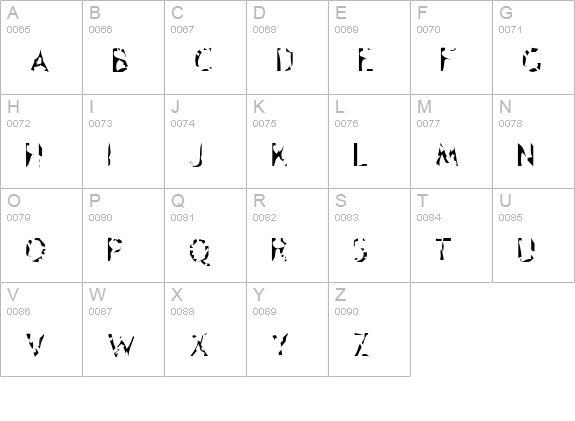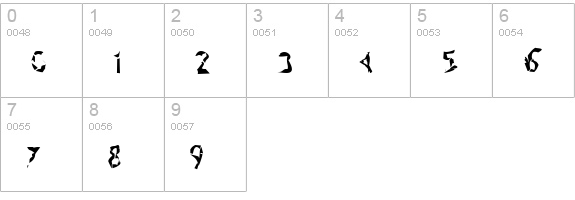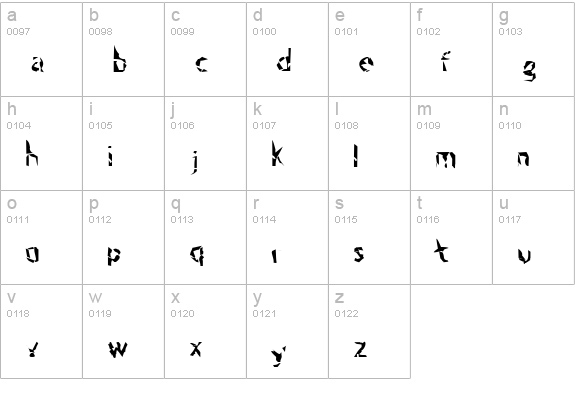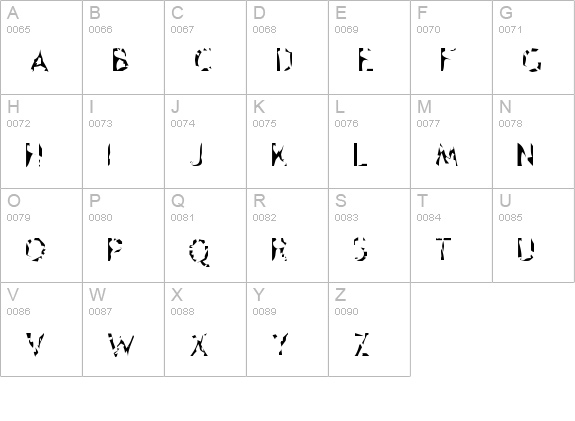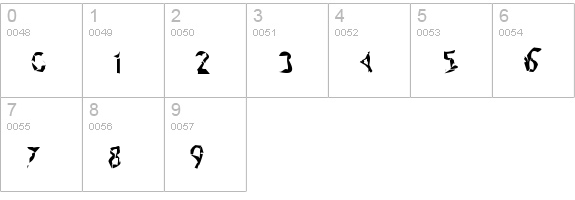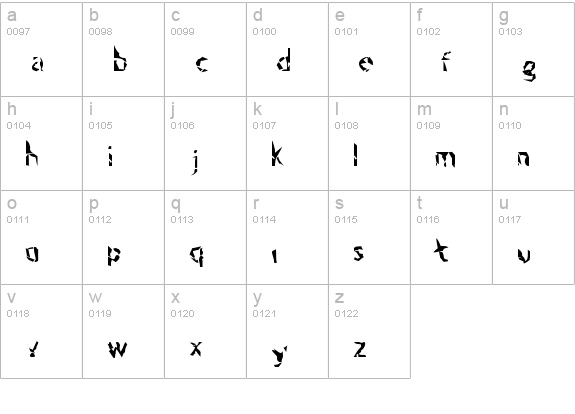
Zone23_psilocybine Font Details
Zone23_psilocybine is a captivating and unique font that exudes a sense of creativity and imagination. Its intricate design features playful curves and whimsical elements that add a touch of whimsy to any project. This font is perfect for those looking to make a bold statement or add a bit of flair to their designs. What makes Zone23_psilocybine even more appealing is that it is completely free to download at FontsMarket.com. This means you can easily access this stunning font and incorporate it into your work without any cost. Whether you're working on a personal project or a professional endeavor, Zone23_psilocybine is sure to make a lasting impression with its one-of-a-kind style. Unlock your creativity and elevate your designs with the free Zone23_psilocybine font from FontsMarket.com.